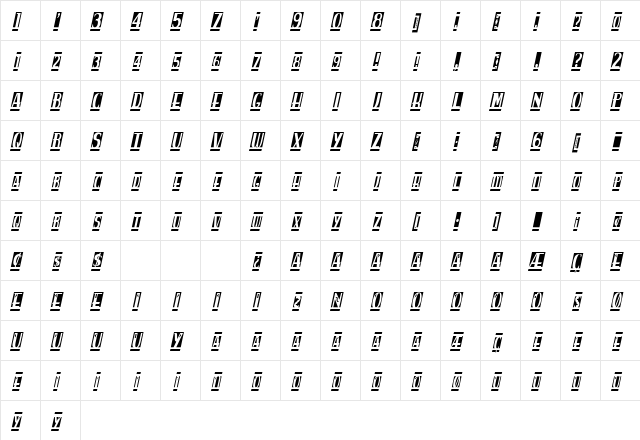
spankys bungalow blanco italico Regular
Design Context for spankys bungalow blanco italico Typeface
spankys bungalow blanco italico is a composed and adaptable typeface that performs quietly and consistently across a wide range of design contexts. The slanted form adds forward momentum and visual energy.
Pro Tip: Try spankys bungalow blanco italico for annotation and caption copy alongside an upright companion — the contrast in angle creates a dynamic but ordered typographic system.